Are you looking for some free farmhouse fonts for your next project?
It’s clear to see why everyone loves using these fonts for their craft projects.
They give off that cozy at-home feeling which fits in perfectly with DIY crafts like funny doormats or mugs with inspirational quotes.
If you’re new to crafting with fonts then it’s understandable that you’ll want to try out a few before investing a lot of money.
Free fonts let you try before you buy. Once you find one that you like, you may even be tempted to make a font of your own.
So whether you’re making crafts on your Cricut cutting machine or just designing printables in Word, here’s a list of some you should try.
Farmhouse Fonts for Cricut Crafts
1. Holiday Stocking and Monogram Home Decor Font
- Get ready for Santa with this Christmas stocking and monogram. You can personalize the letter of the monogram to fit everyone in your family. The stocking design and font are free with Cricut Access.
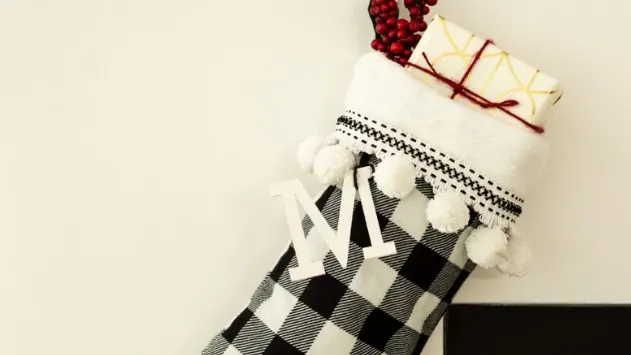
Funny Kitchen Towels
- You can never have too many kitchen towels. Add to your collection with this fun farm towel project. The mix of the Babette font and the farm animals is a perfect fit for them.
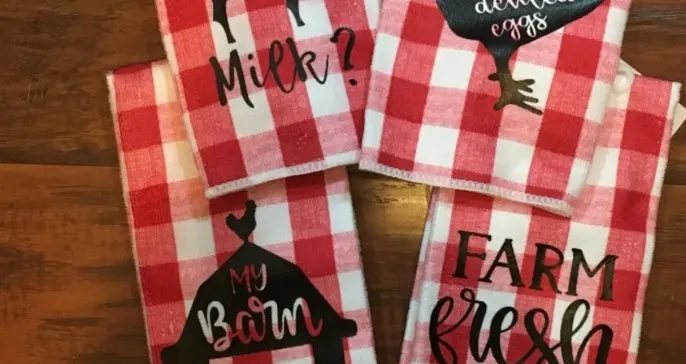
3. Christmas Pajama Font
- Here are two fonts that have a holiday spirit but you’ll want to use all year long. Straight & Simple and Wildflower are two playful fonts that add the perfect touch to gift tags, handmade presents, and that set of family Christmas pajamas that you just can’t wait to make.
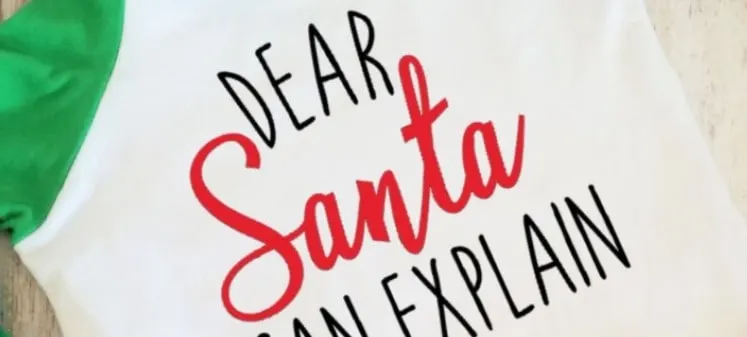
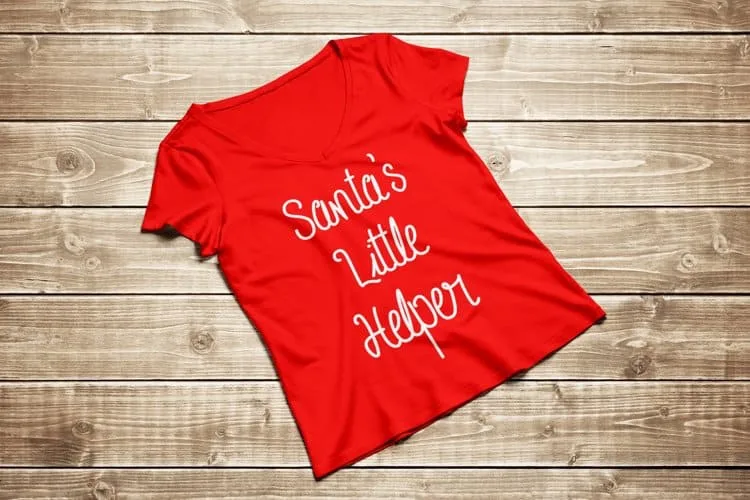
Modern Farmhouse Fonts
- Do you want to set a sophisticated tone? The Christmas Farmhouse font is ideal for that. It has a beautiful handwritten style to it.
- If you are looking for a font that is calligraphic yet simplistic try the Welcome Farmhouse font.
- The Hello Farmer font has a charming tone to it with its handwritten style. It’s ideal for signboards.
- Breathe some life into your design with the Yolan font. It’s chic yet homely.
- The Clipper font is a beautiful font with its bold and italic features. It’s a partial font; free for personal use.
- The Farm House FS font is smooth with a bit of a fancy twist.
- Are you looking for the perfect font for your wedding invitation? The Strong Font is your best bet due to its appealing calligraphy.
Cute & Playful
- Are you looking for a cute font for your snack packaging, try the Little Cupcake font.
- The Fresh Lemonade font is a narrow monoline handwritten font. Playful and fun best describe its tone.
- Cookies and milk is yet another handwritten font with a delightful childish element.
- The cute lime font is perfect for cartoons and other fun projects.
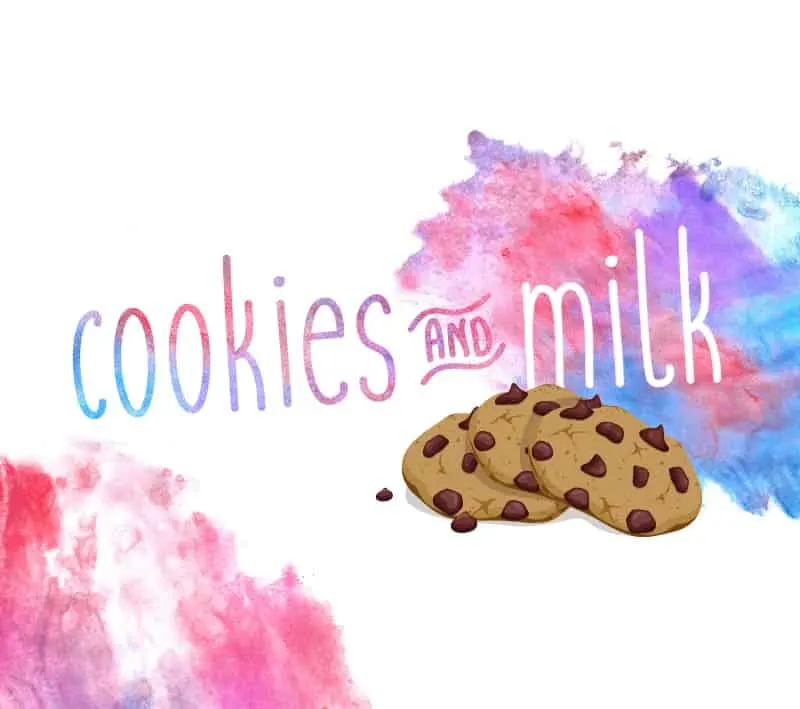
Vintage & Old-fashion
- The Hatterline font is a vintage-style font with a monoline face type. Downloading it gets you a two-in-one package as it includes an extra san serif font.
- If you are looking for something thick and bold, check out the Revalate font. It comes in all caps (capital letter) and is ideal for clothing.
- My skinny type font is yet another vintage handwritten font that you can use for scrapbooking.
- If you are looking for an old-school style font, the vegan style font is a good choice. It’s a partial font that is thick and bold.
Popular Farmhouse Fonts
- The Ambarella font is a lovely calligraphic font that is free for both personal and commercial use.
- If you are looking for an old-school style font, the vegan style font is a good choice. It’s a partial font that is thick and bold.
- Get the full effect of ocean waves with the shoreline font. A combination of uppercase and lowercase characters gives an elegant handwritten effect.
- Tomatoes by Billy Argen is a partial font that can be used in a wide variety of projects.
- Farm to table is a combination of two fonts that give it a rustic yet modern tone. It’s ideal for crafts, t-shirts, among other items.
- Are you looking to add a fresh and stylish touch to your design? You may want to try the Lovely Barthy font. It will go well with any farmhouse sign that you make for the living room or kitchen.
- The handwritten style of the Jullian font is modern but casual and will look great on clothing, invitations or on stylish accessories like a tote bag.
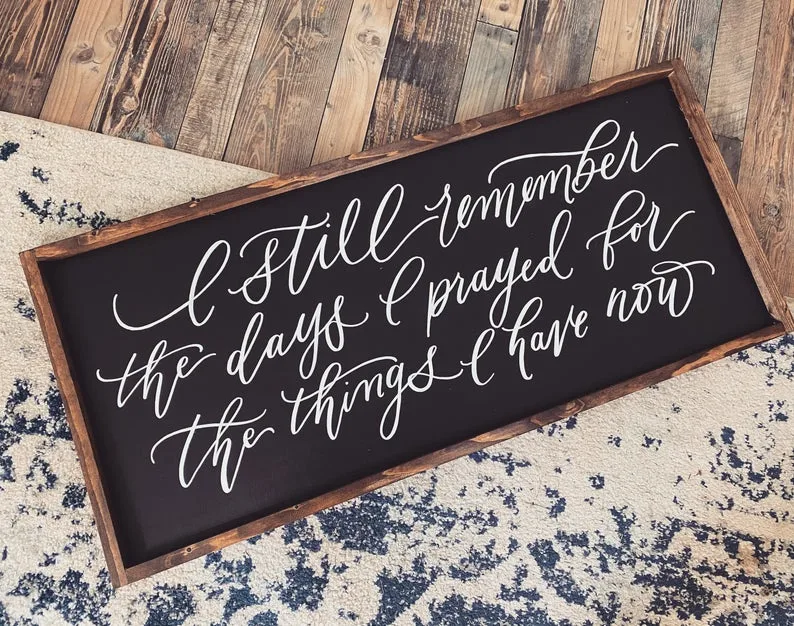
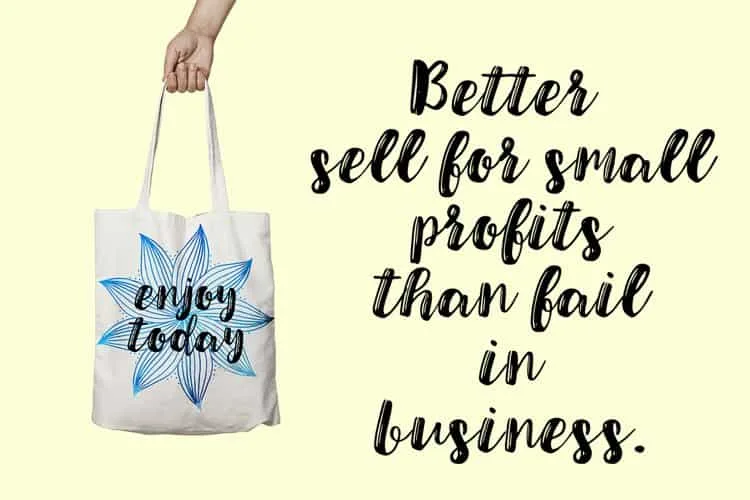
Tips for Using Farmhouse Fonts
These free farmhouse fonts are excellent for various farmhouse-themed projects.
Ensure that your font of choice is appealing to your target audience.
It should also communicate the mood around your project. In addition, the font should blend well with the other elements surrounding it.
Now go ahead and get yourself the perfect font for your project.